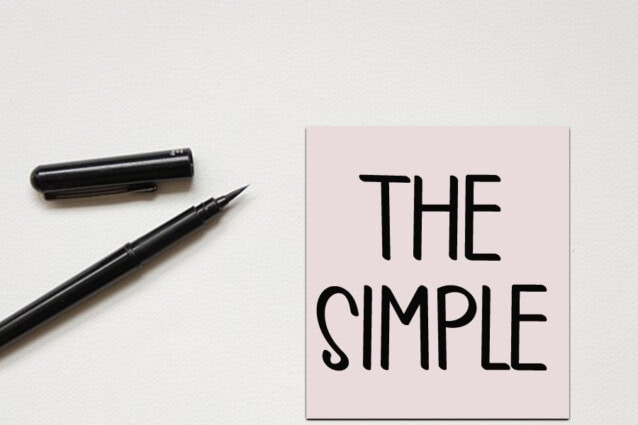
Owner Display Font
Owner Display Font is a cool handwritten font with a modern vibe and spotless form, inspired by classic calligraphy. Not too thin and not too thick, balanced and varied, this font was designed to enhance the beauty of your projects.
inermediaSTUDIO